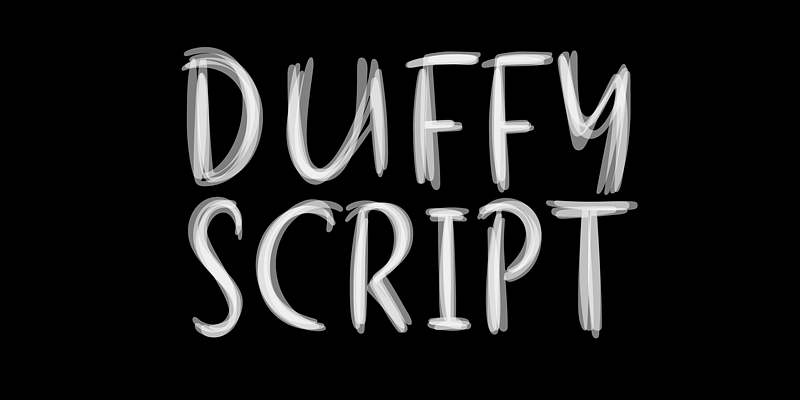
Looking to imbue your designs with a touch of personal charm, expressive fluidity, and a distinctly modern handwritten aesthetic? Duffy Script Font Free Download offers a delightful opportunity to explore a typeface brimming with character. It's crucial to remember, however, that while a Duffy Script Font Free Download might be available for personal and testing purposes, a commercial license is required for any professional or revenue-generating projects. This ensures legal compliance and provides essential support to the talented font designers.
The Duffy Script Font is exceptionally well-suited for projects that demand a bespoke, artistic, or luxurious aesthetic. Its often flowing connections, natural brush strokes, and authentic handwritten feel make it an excellent choice for wedding invitations, high-end branding, and personalized stationery. It's ideal for greeting cards, social media headers, and beauty product packaging where a refined and intimate feel is desired. Furthermore, consider Duffy Script Font for fashion editorials, artistic portfolios, and any design aiming to convey heartfelt emotion, sophistication, and a human touch. Its fluid character also brings life to quotes, poetry, and blog titles.
What makes the Duffy Script Font so exciting is its inherent ability to transform simple text into a captivating work of art. It often features graceful swashes, ligatures, and a harmonious rhythm that sets it apart, giving your message a unique and intimate presence. This characteristic allows it to communicate a sense of craftsmanship, exclusivity, and heartfelt elegance, making your message resonate with genuine emotion and a discerning audience. It’s a font that doesn't just display text; it adds a signature flourish, bringing a layer of visual poetry and timeless appeal to any creative endeavor. Its distinctive aesthetic ensures your work will stand out with elegance and a truly memorable flair.
The Duffy Script Font family typically focuses on delivering its unique stylistic elements to enhance its versatility. You'll often find a beautifully crafted Regular weight, which might be complemented by specific bold variations to provide typographic contrast. Due to its expressive, script nature, the family often includes an abundance of ligatures, stylistic alternates, and swashes that allow for highly customized and truly calligraphic text compositions, providing extensive creative options for designers to achieve that perfect handwritten look.